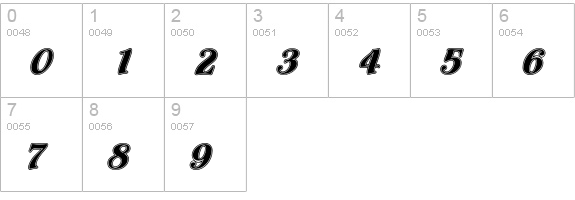
FlamencoInlineEF Font Details
FlamencoInlineEF font is a stunning display typeface that exudes elegance and sophistication. Its intricate design features delicate swirls and curves, giving it a unique and stylish look. The combination of thin and thick lines creates a harmonious balance, making it perfect for adding a touch of flair to any design project. What sets FlamencoInlineEF font apart is that it is available for free download at FontsMarket.com, making it accessible to designers and creatives looking to elevate their work without breaking the bank. Whether you're working on a branding project, poster design, or any other creative endeavor, FlamencoInlineEF font is sure to make a statement and leave a lasting impression. Add a touch of class to your designs with this exquisite font today!